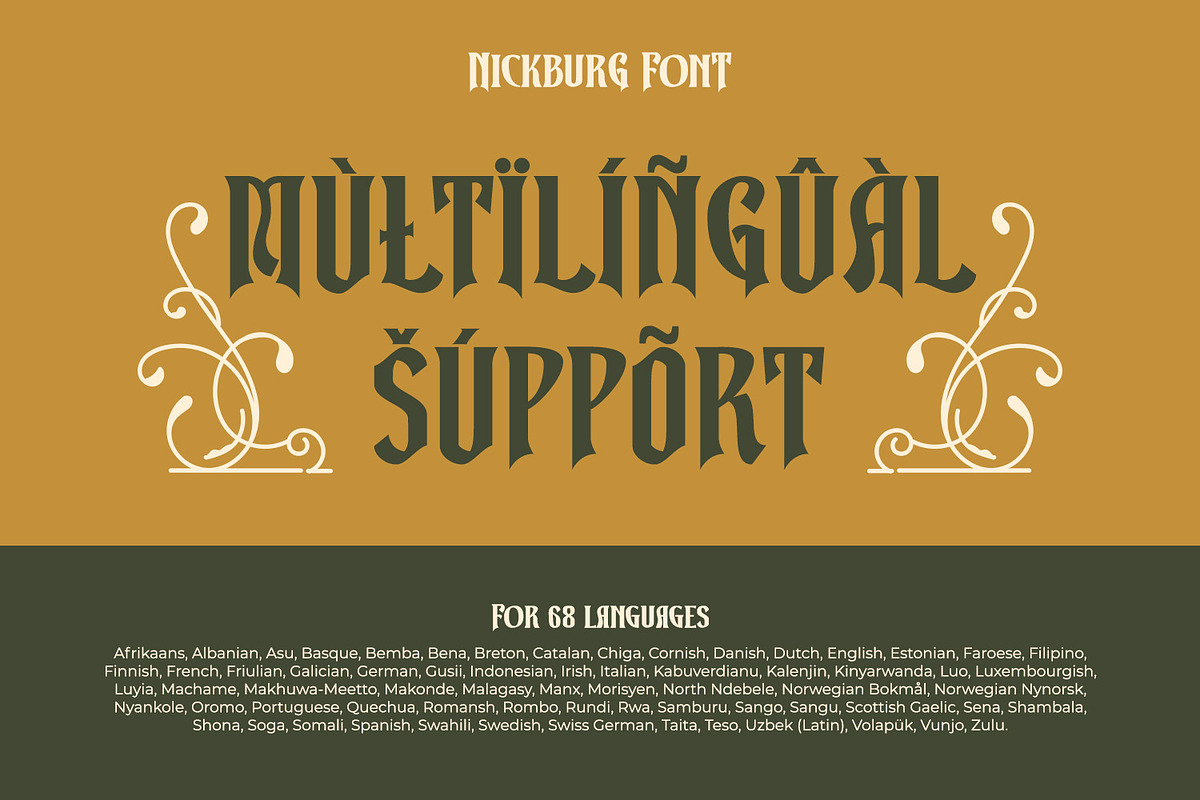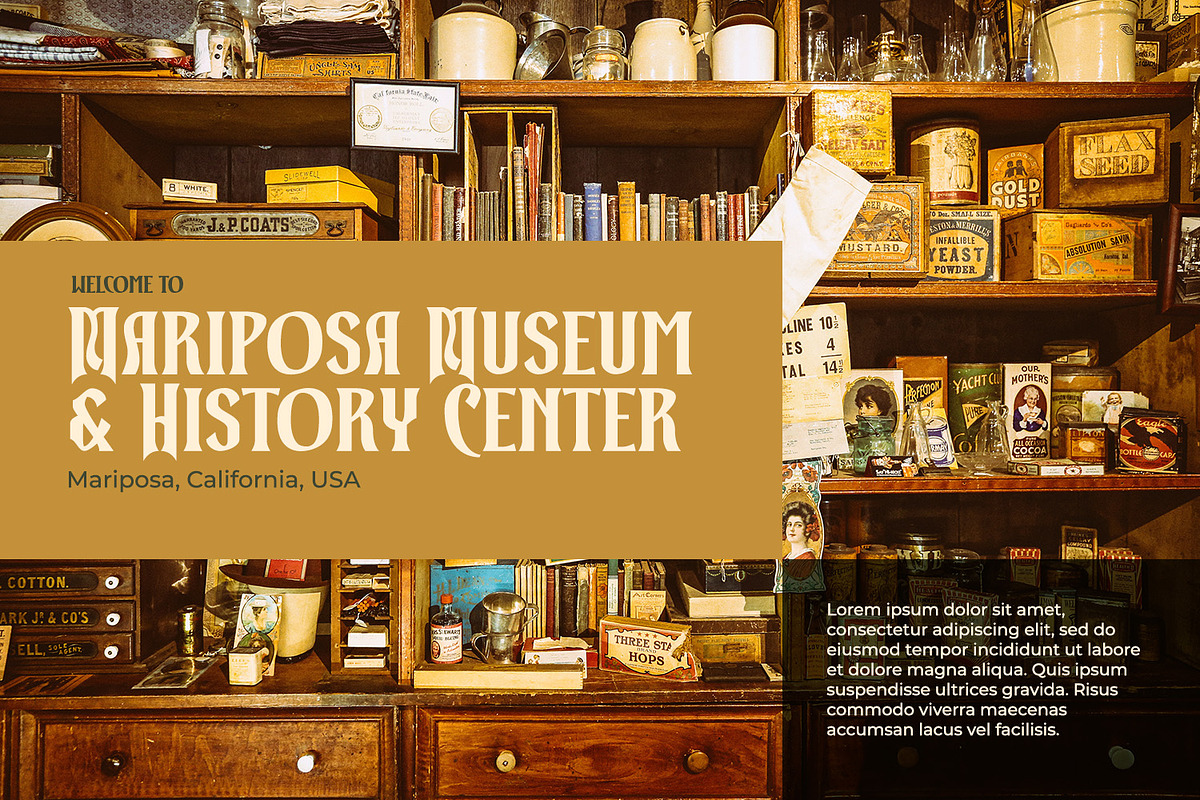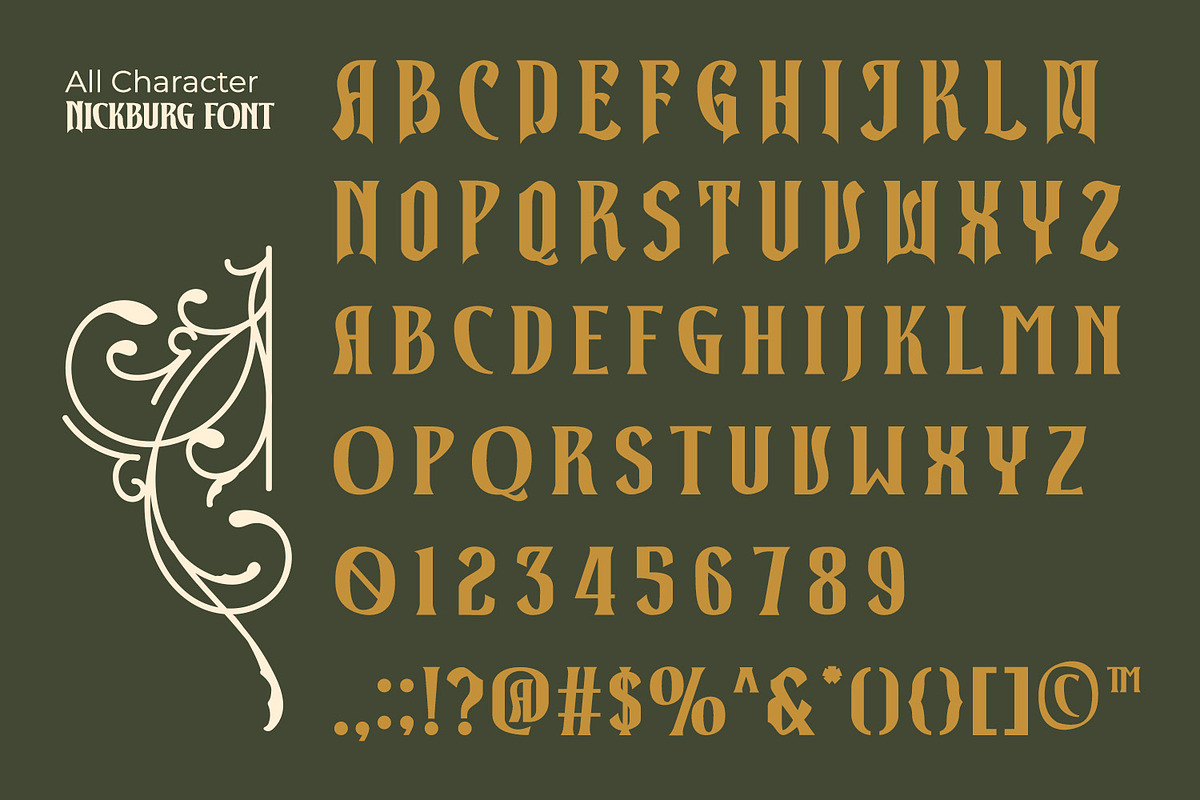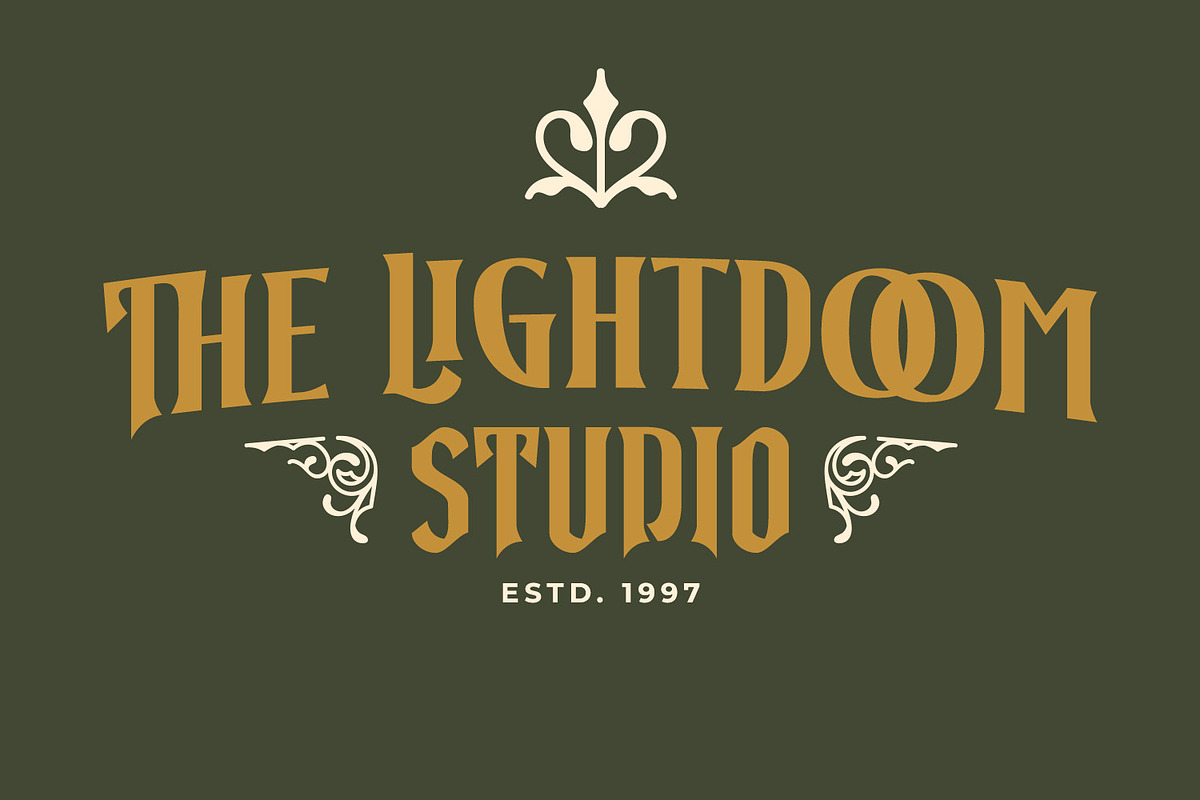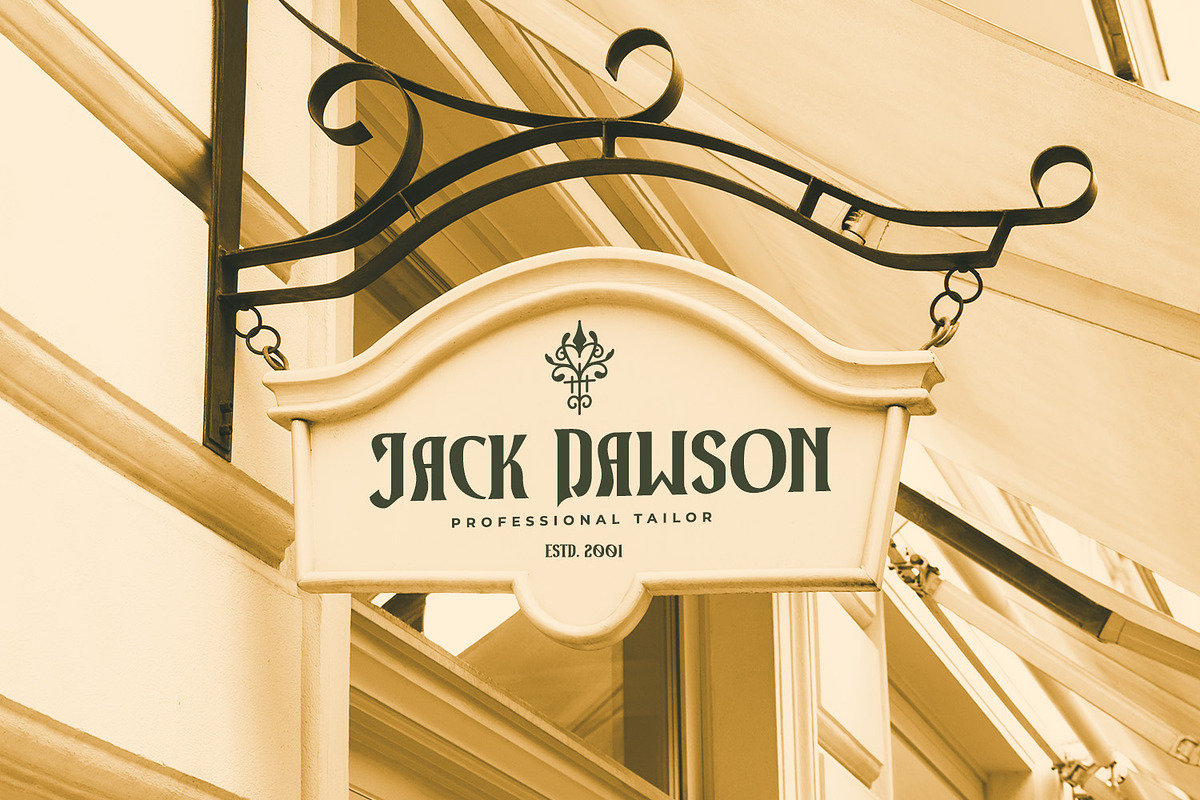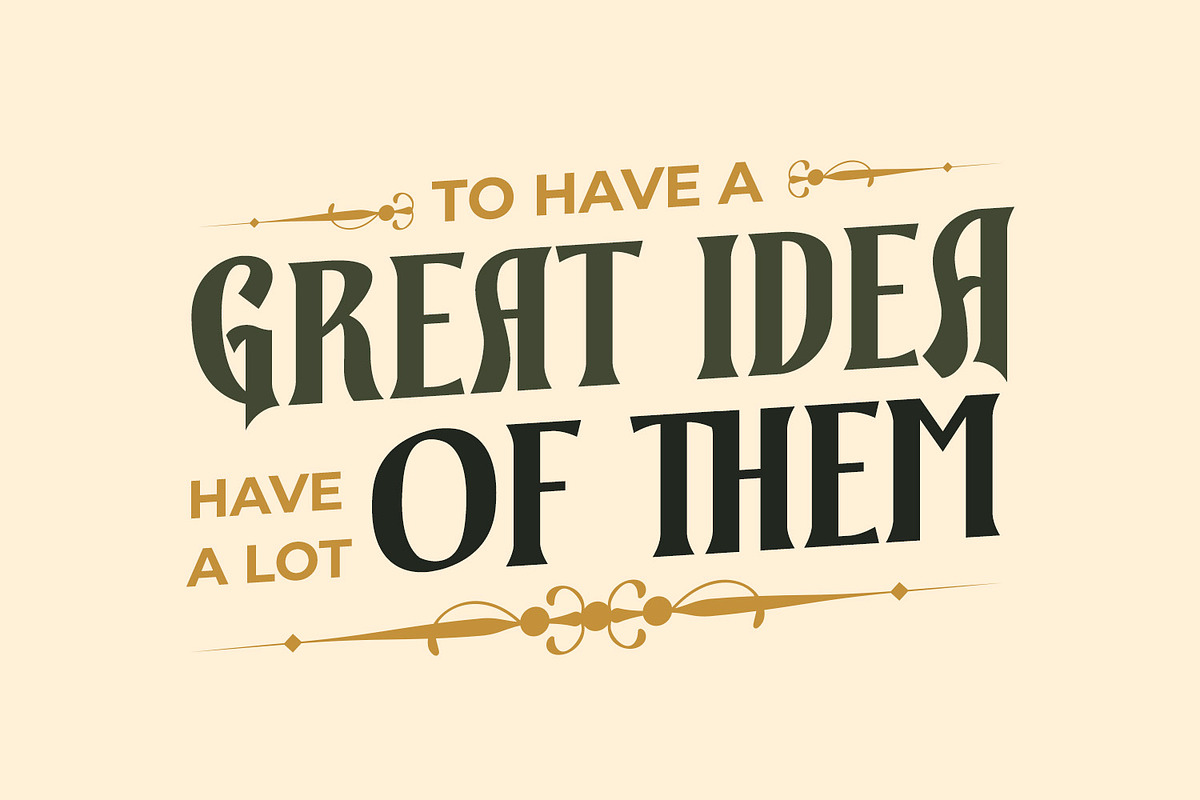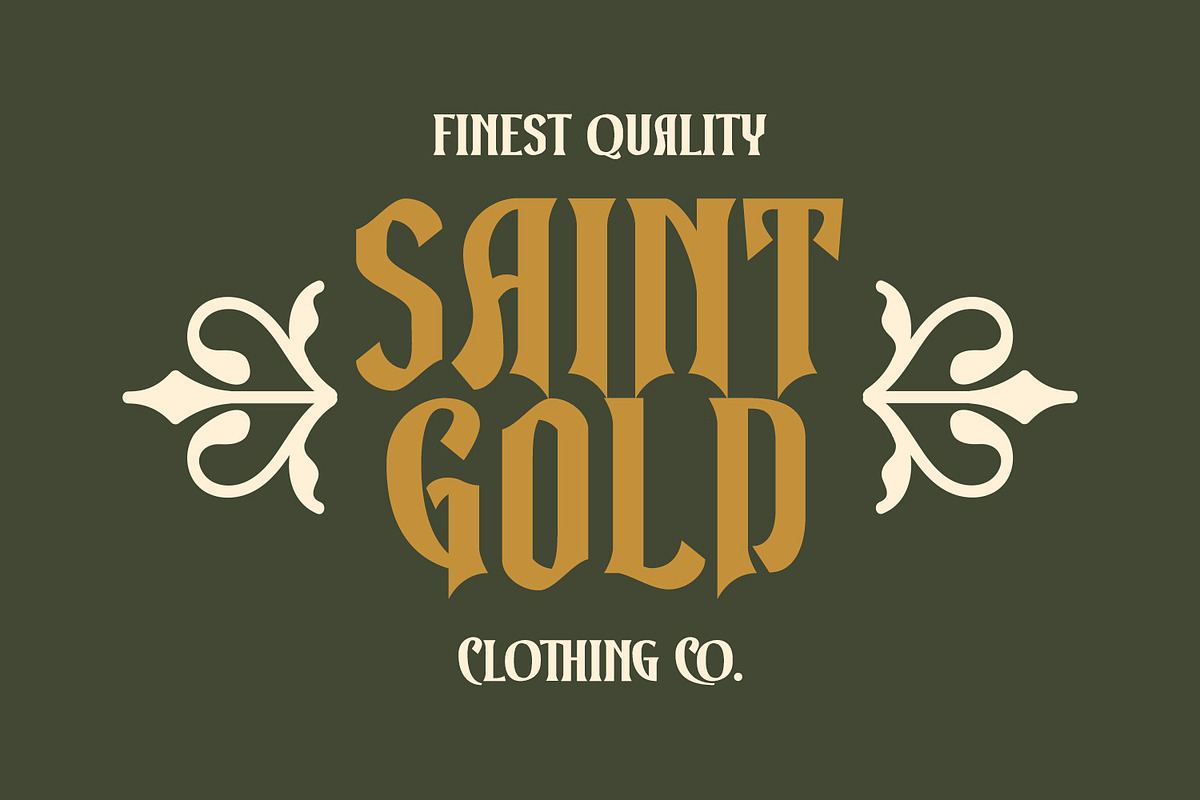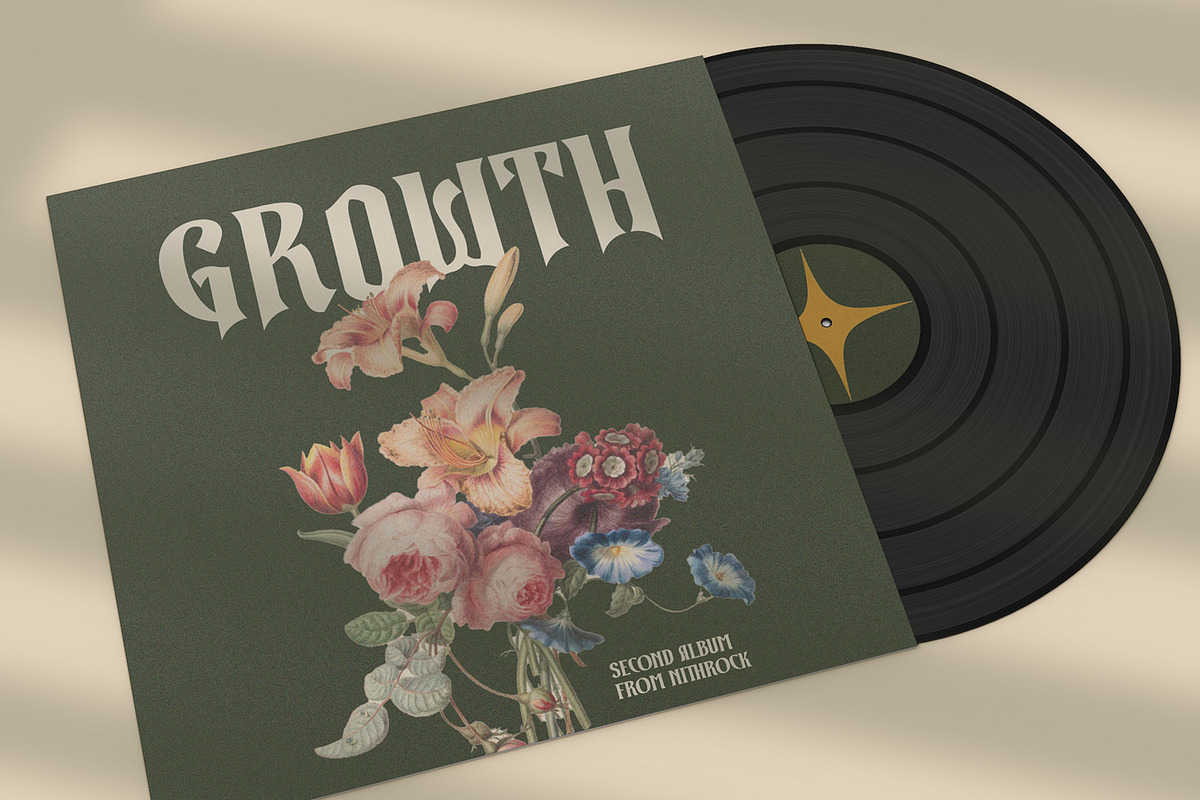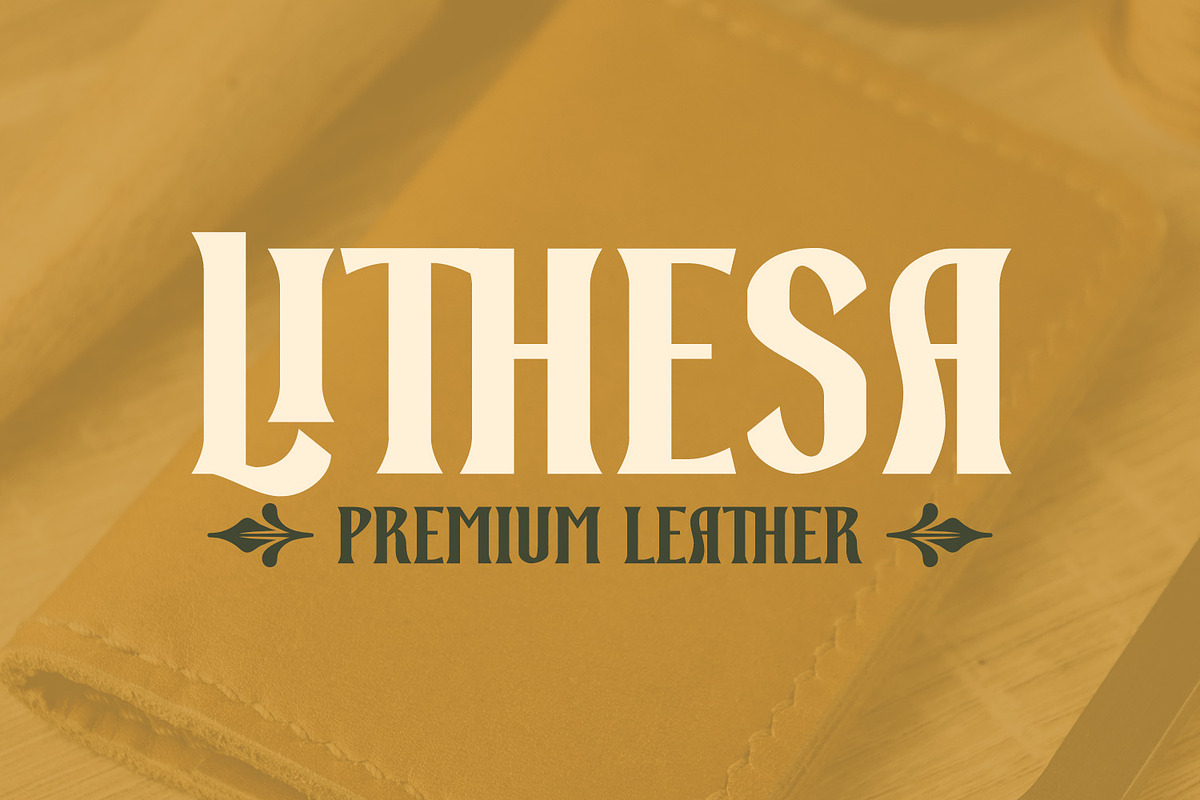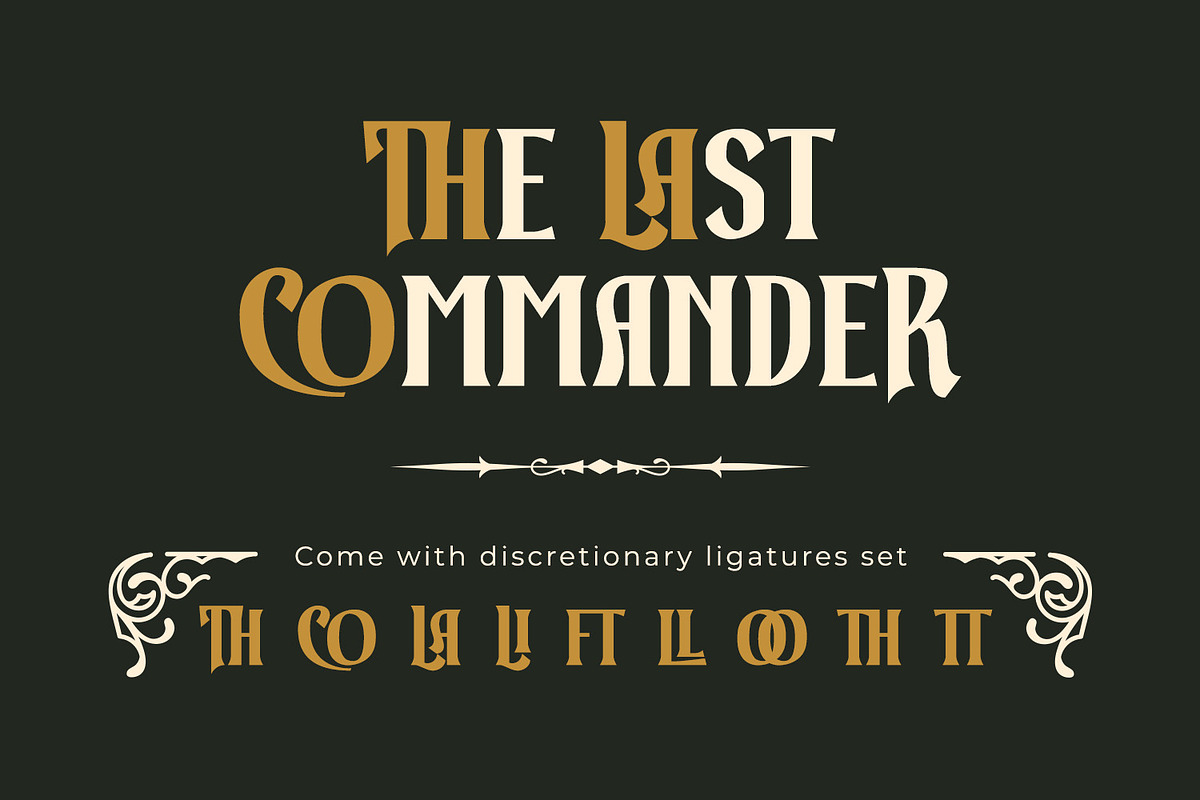
Nickburg
Nickburg is a display font that exudes timeless charm and commanding presence. This font captures the essence of classic design with a contemporary twist. The oversized uppercase letters of Nickburg are impossible to ignore. Each character of this font commands attention with its substantial size, making it an excellent choice for any design where you want your message to be front and center.
The vintage style of Nickburg evokes the elegance of eras past. It brings to mind the golden age of typography. The font's heavy weight adds a touch of grandeur, ensuring that your text carries a sense of authority and sophistication.
What sets Nickburg apart is its sharp corners. These distinctive details give the font an edgy and modern twist, making it suitable for contemporary design projects as well. This unique combination of vintage and sharpness creates a captivating contrast that elevates your text and makes it unforgettable. This font includes ornaments as a special bonus. Moreover, enjoy the features here.
Nickburg fits in headlines, logos, posters, flyers, branding materials, print media, editorial layouts, and many more. Find out more ways to use this font by taking a look at the font preview.